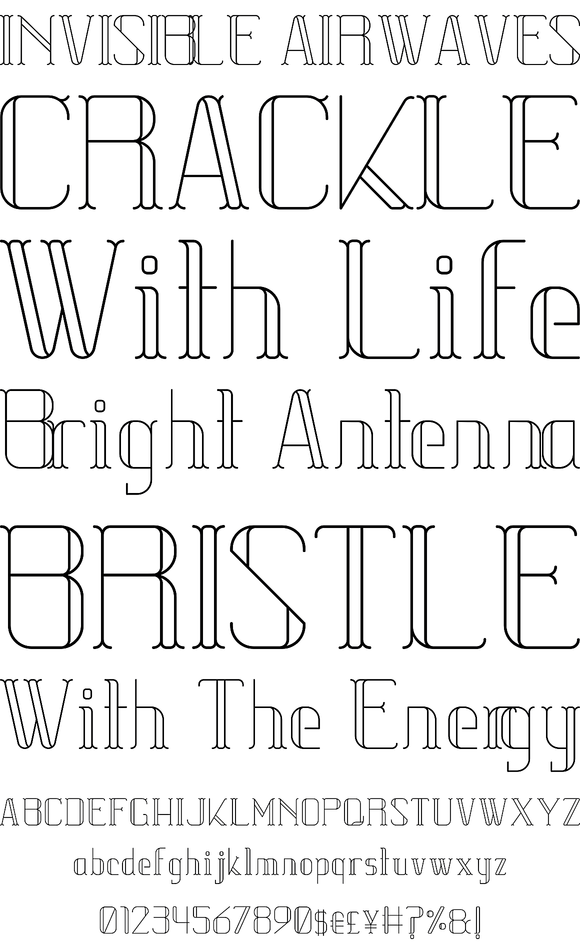
Bakane is inspired by the basic features of the Roman glyphs. This font leaves the strokes hollow, simplifying its features only with lines. A contemporary and flexible display font with the characters and punctuation necessary for most languages....
Bakane is inspired by the basic features of the Roman glyphs. This font leaves the strokes hollow, simplifying its features only with lines. A contemporary and flexible display font with the characters and punctuation necessary for most languages.